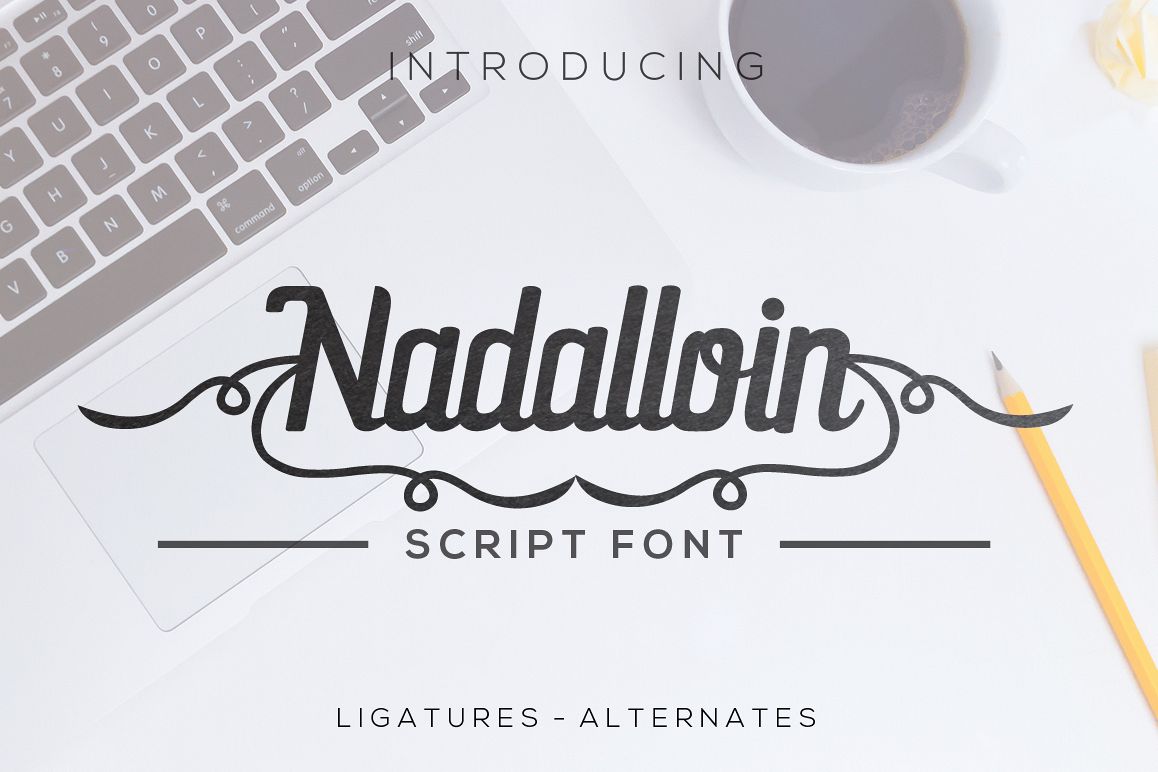
Nadalloin font
Nadalloin is a geometric modern script font with vintage ornament.
Very suitable for greeting cards, branding materials, business cards,quotes,posters, and more
• Uppercase A-Z
• Lowercase a-z
• Numbers 0-9
• Punctuation
• Custom Ligatures
• Uppercase alternates
• Lowercase alternates